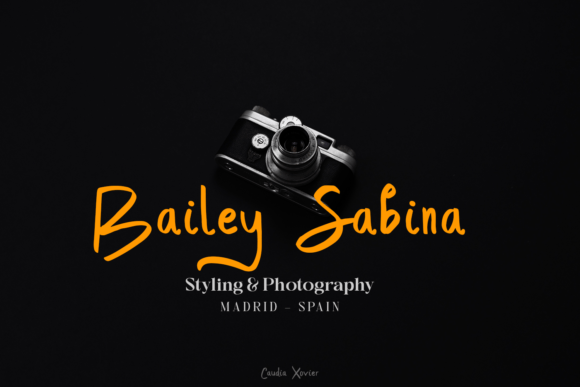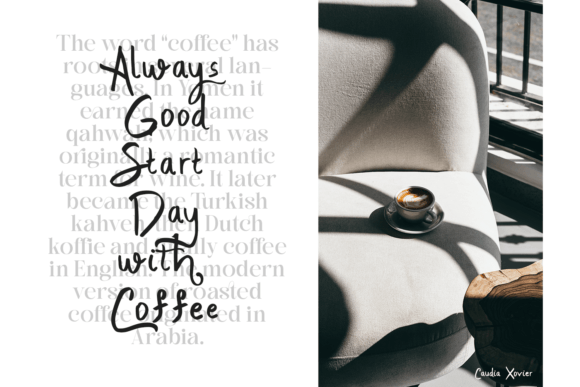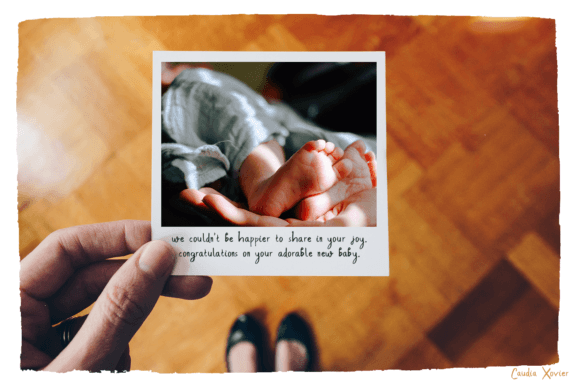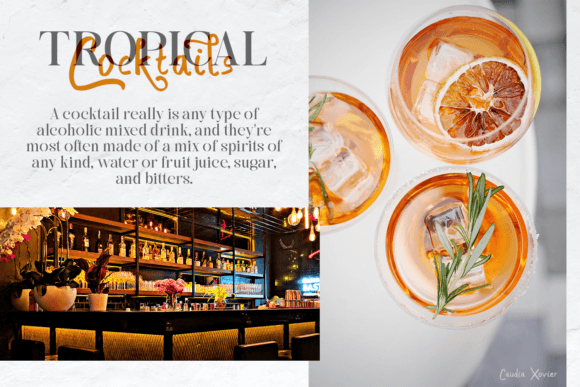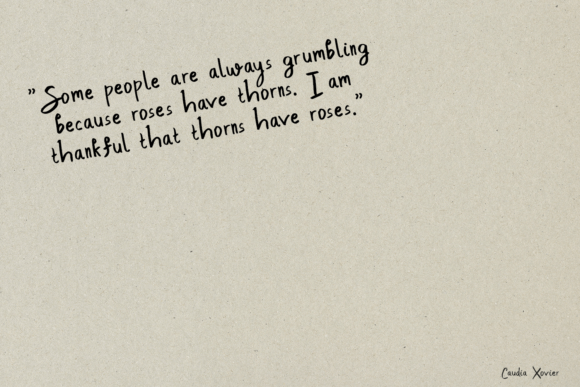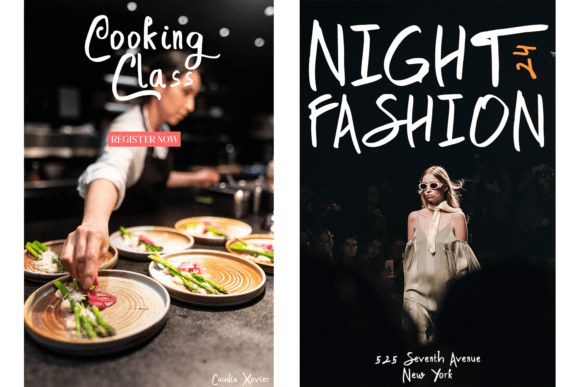
The Perfect Touch of Whimsy: Unlocking the Power of Caudia Xovier Font
Have you ever found yourself staring at a blank canvas, unsure of how to bring your creative vision to life? You know the feeling – that spark of inspiration is just out of reach, waiting to be sparked. It’s in these moments that the right tool can make all the difference. Enter the Caudia Xovier Font, a masterfully designed display font that adds a playful touch to any design idea.
With its charming, handwritten feel, Caudia Xovier Font is the perfect addition to any designer’s toolkit. Whether you’re working on a children’s book, a marketing campaign, or a social media post, this font has the power to elevate your creative ideas to new heights. Its versatility and charm make it a true favorite among designers, and for good reason – it’s a game-changer for anyone looking to add a little extra magic to their work.
Caudia Xovier Font Key Features
- Font Size: The font is available in 1 font weight, with 2 font styles (Regular and Italic).
- Unique Characteristics: Caudia Xovier Font features a unique, elegant script with flowing connections and subtle flair, making it ideal for creative and artistic applications.
Caudia Xovier Font Review
As a designer, I was excited to dive into the Caudia Xovier Font. I must say, it has some great qualities that caught my attention. ✨ The font’s elegant script style is perfect for creating a sophisticated and luxurious feel in any design project. The subtle flair at the ends of the letters adds a touch of whimsy and sophistication. ✨ The font is also highly versatile, working well for both digital and print media.
- ✨ Elegant script style perfect for luxury brands
- ✨ Subtle flair at the ends of the letters adds a touch of whimsy
- ✨ Highly versatile for digital and print media
However, there are a few limitations that I’d like to point out. ⚠️ The font is quite ornate, which can make it difficult to read in certain contexts. Additionally, the font’s size can become unwieldy if not carefully managed. ⚠️ I’ve also noticed that the font doesn’t support many languages, which may limit its use in multilingual projects.
Overall, I think the Caudia Xovier Font is a great addition to any designer’s toolkit. With its elegant style and versatility, it’s perfect for creating sophisticated designs. However, it’s essential to use it judiciously and consider its limitations to get the best results.
Tips for Getting the Most Out of Caudia Xovier
Use Caudia Xovier for titles, headings, and other text elements where you want to add a touch of elegance and sophistication.
Combine Caudia Xovier with other fonts to create a unique and eye-catching visual identity.
Experiment with different font sizes and styles to achieve the desired visual impact.